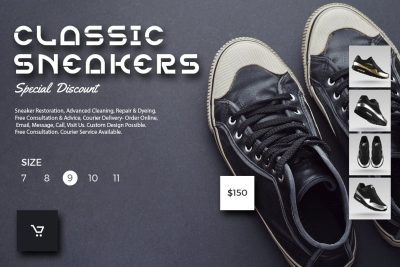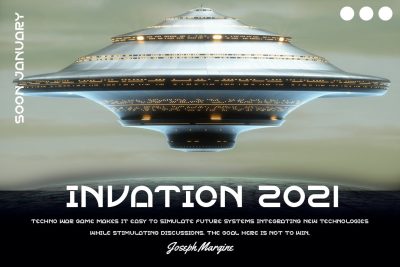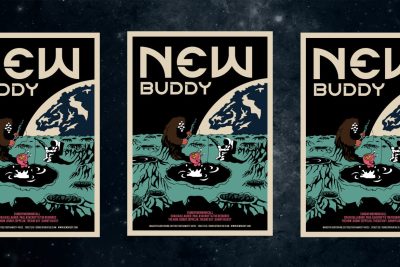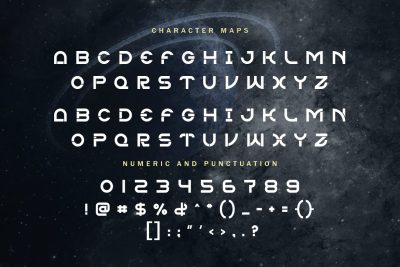
Moreover, Futuristic Font Overfield seamlessly blends sleek geometry and a modern aesthetic, thereby setting a new benchmark in font design. Its bold lines and futuristic curves make it ideal for digital interfaces, branding, and tech-inspired projects. Additionally, Overfield commands attention with its innovative design, whether used for sci-fi posters, tech ads, or space-themed visuals. Furthermore, it captures the essence of futurism while delivering clarity and sophistication in every letterform. This font suits modern brands and creatives aiming to communicate innovation and forward-thinking. As a result, its versatile structure ensures readability on digital screens as well as in printed media, thus making it a reliable choice for various applications.
Elevating Your Design with Futuristic Font Overfield
In todayโs fast-evolving creative landscape, selecting the right font is critical for making an impact. With this in mind, Overfield provides an unparalleled combination of modern aesthetics and practical usability. Whether you’re crafting a high-tech website, developing promotional materials for an innovative product, or designing a futuristic video game interface, this font elevates your vision to the next level.
Specifically, the Futuristic Font Overfield is a powerful tool for designers seeking a modern edge in their projects. It works perfectly for digital interfaces, gaming titles, and innovative branding. In particular, the font integrates seamlessly with futuristic themes and tech-forward aesthetics. Its bold presence enhances visual hierarchy in headlines, posters, and social media banners. Overfieldโs style is visually striking and, moreover, ensures consistency across platforms, from web to print.
Additionally, Overfieldโs multilingual support makes it suitable for global campaigns. By ensuring compatibility across languages, it enables brands to connect with diverse audiences. The fontโs crisp and clean lines also pair well with bold color schemes and minimalistic layouts, enhancing both visual appeal and readability. Whatโs more, this fontโs flexibility supports various creative outputs, from virtual reality experiences to digital product launches.
By choosing Overfield, you invest in a font that redefines typographic trends and, consequently, supports cutting-edge design. With its futuristic charm and practical usability, Overfield is essential for creatives pushing the boundaries of modern design.